Local breweries generally thrive as a melting pot where a community can share its emotions and passions. Traditional fonts for local brewery design can help anchor your brand in a timeless narrative that resonates with your customers. Let’s create a memorable design for your brewery!
Traditional Fonts for Local Brewery
Your new font selection should evoke history, craftsmanship, and authenticity, therefore we’ve combined our top 20 fonts for this endeavor. These fonts for beer brewery branding are carefully made to pop among other design elements so, get ready!
1. Black Brutal
Black Brutal is a brush font with adventurous and nostalgic vibes. This font can evoke a sense of brotherly affection while displaying its creative expression in each letter.
2. Generation
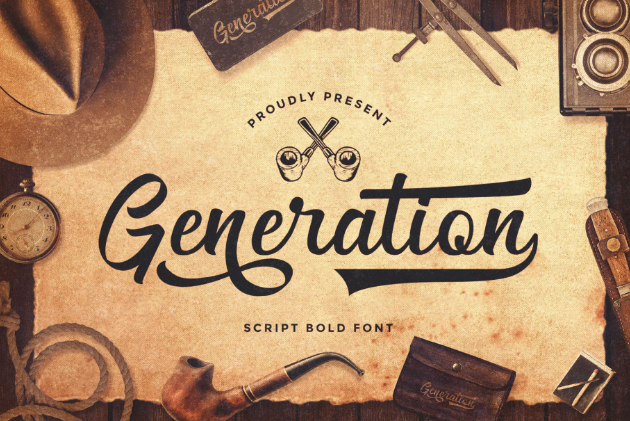
A font that perfectly represents the warmth and heritage of a safe house is Generation. This font fits the old-school and exclusive vibes you want in a local brewery setting.
3. Ramder
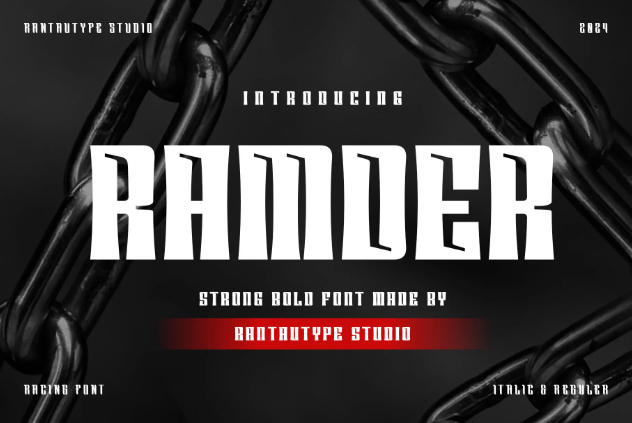
Ramder is a bold, strong font with a lot of masculine aura. This font is better suited for a place with a fitness or automotive community. The font has a unique and striking squared appearance, granting easier memorability.
4. Rectinos
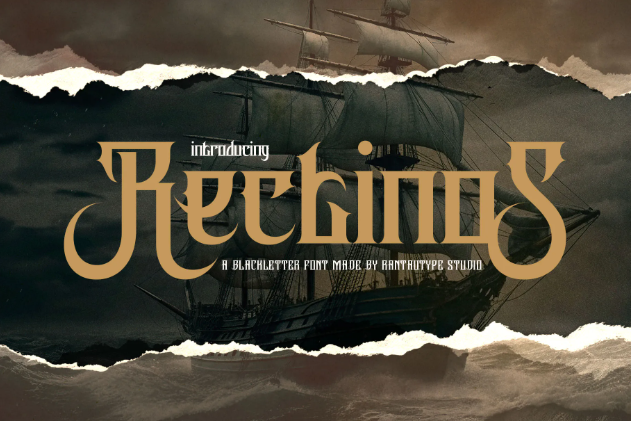
If you’re into both horror and classy aesthetics, Rectinos is made for you. This is a blackletter font with a humble amount of ornamental, which makes it look thematic yet dapper.
5. Antrope
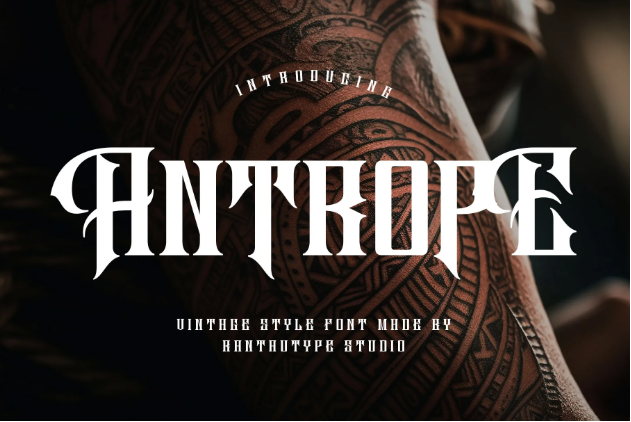
Antrope is made to have a striking appearance, it has both style and boldness. It’s a versatile font with a vintage vibe on the regular and futuristic when you add italics.
6. Westner
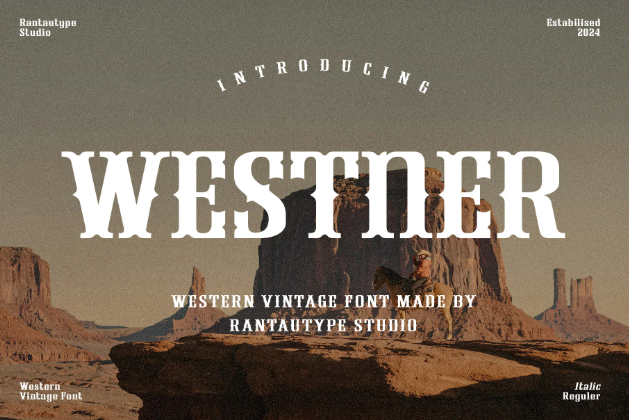
The Westner captures the adventurous spirit of the American frontier, blending boldness with rustic charm. It features thick, blocky lettering with ornate serifs, decorative spurs, and a vintage feel.
7. Mirdane
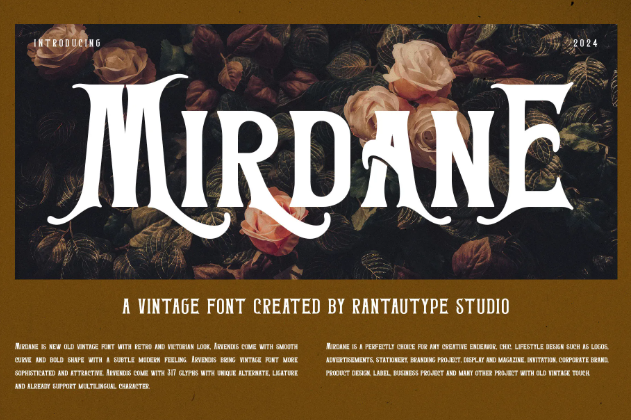
Mirdane is a new take on the Victorian-styled font, instead of leaning toward Gothic, this font opts for a vintage look. The font utilizes all caps and features curvy ornaments.
8. Firlest
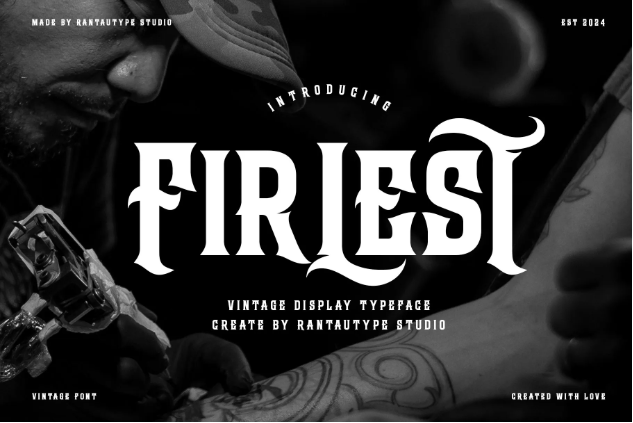
Firlest vintage font is inspired by tattoo and biker aesthetics. This font has the traditional fonts for local brewery with its bold, blocky letters. Not to mention the fiery ornament that enhances the visual.
9. Naserra
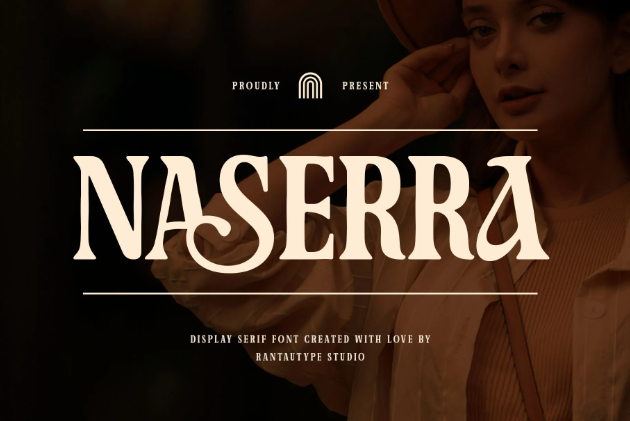
A display serif font like Naserra is particularly fit for modern aesthetics. The font focuses on readability, elegance, and flairs. The font is equipped with numerous alternates and ligatures to spice up your designs.
10. Arthegis
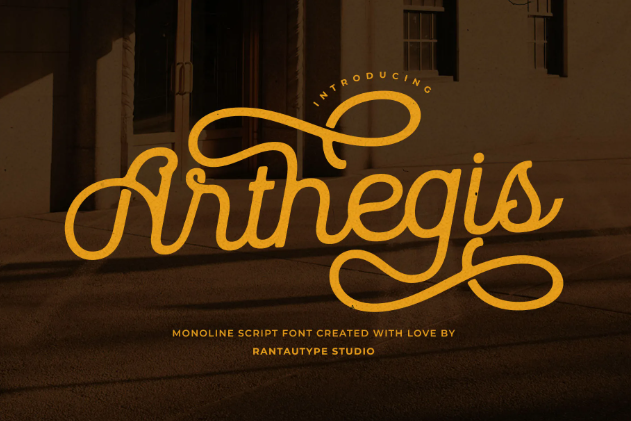
If you’re interested in making a wild-shaped branding, a monoline font like Arthegis is perfect for you. With its balanced strokes, Arthegis has more leeway to produce lavish swashes.
11. Hanora
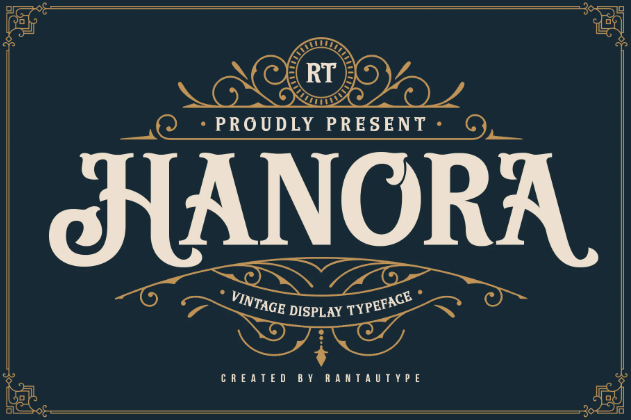
Hanora is an expert blend of bold typography and sophistication. The font features natural ornaments on each letter. This font also provided alternates of every letter to cater to your creativity.
12. Burgeon
A familiar font like Burgeon is always a good welcoming brand design. This font has a blocky, bold, and Western typeface with fully ornamented letters. Each letter has uniformed lateral spurs and the alternates packed curved variations.
13. Baynois
If you’re looking for a more fluid design, Baynois is the one. This display serif font can add a vintage vibe to your design with its classical letterforms.
14. Agerola
Agerola screams retro vibes. This font represents more cafe-esque aesthetics. Also, it has a clean look, for your modern designs. Just with its typeface, the font has timeless elegance let alone if you use the alternate and ligatures.
15. Helison
Helison is another blocky and bold font on our list. This one has a vintage or sporty look, depending on your overall design. It has great legibility and warm vibes to it.
16. Arishen
If you’re into some heavy thematic feels, our decorative Victorian font Arishen can further elevate your aesthetics. It is an all-caps font with artistic designs on every letter.
17. Mordela
Mordela is our tamer version of the Western font theme. A striking fit as your local brewery font that has a wide range of customers. The font still retains its vintage root while adding curvier details.
18. Cinega
If your local brewery is fancy, Cinega can capture that aesthetic perfectly. The font has a bold appearance, adopting ribbon-like strokes with a sexy diagonal counter.
19. Ronagia
Ronagia casually balances thick and thin strokes for better readability. On top of that, the font uses a serif style with stunning interpretation. It uses its thickness to further ornate the overall look.
Ready to Build Your Authentic Brewery?
With our vintage, modern, and striking fonts, you can create the visual appeal of your brand’s design. Traditional fonts for local brewery branding have the power to bridge past and present, creating a visual story that feels authentic and inviting. So, the next time you revamp, just hop on our shop and cop a stunning font.